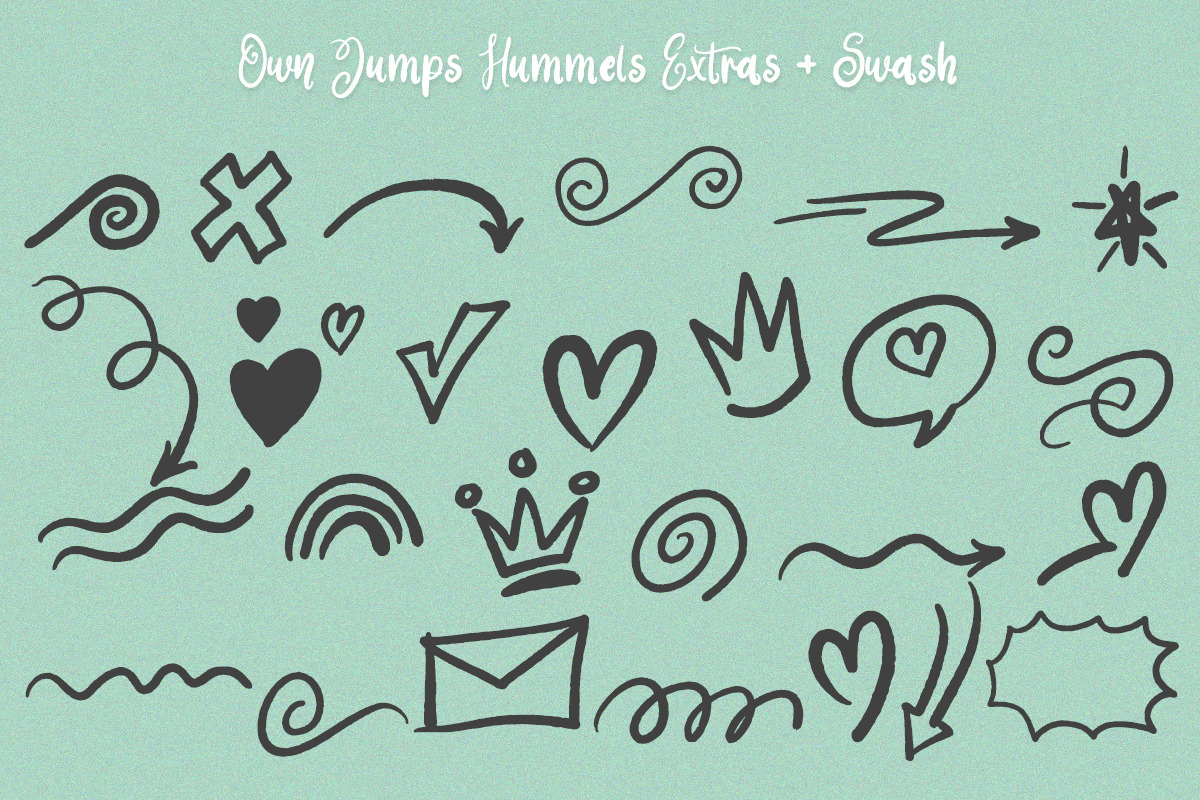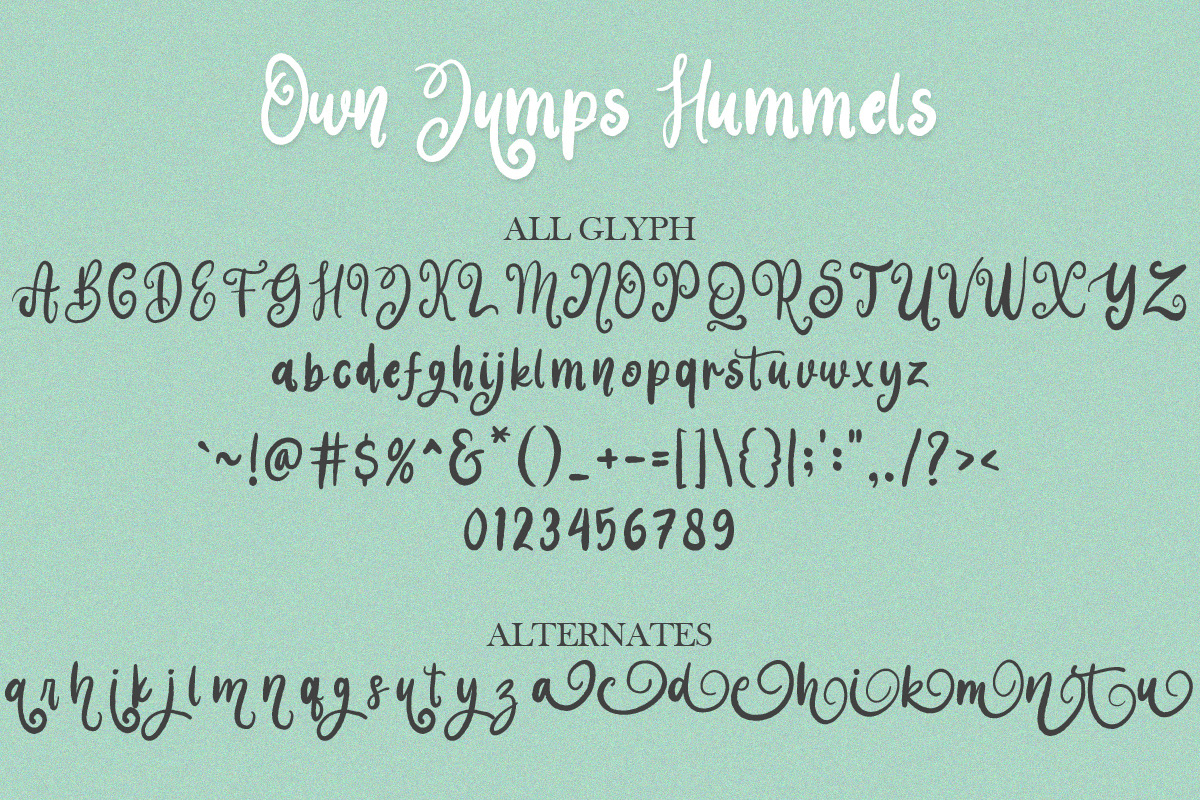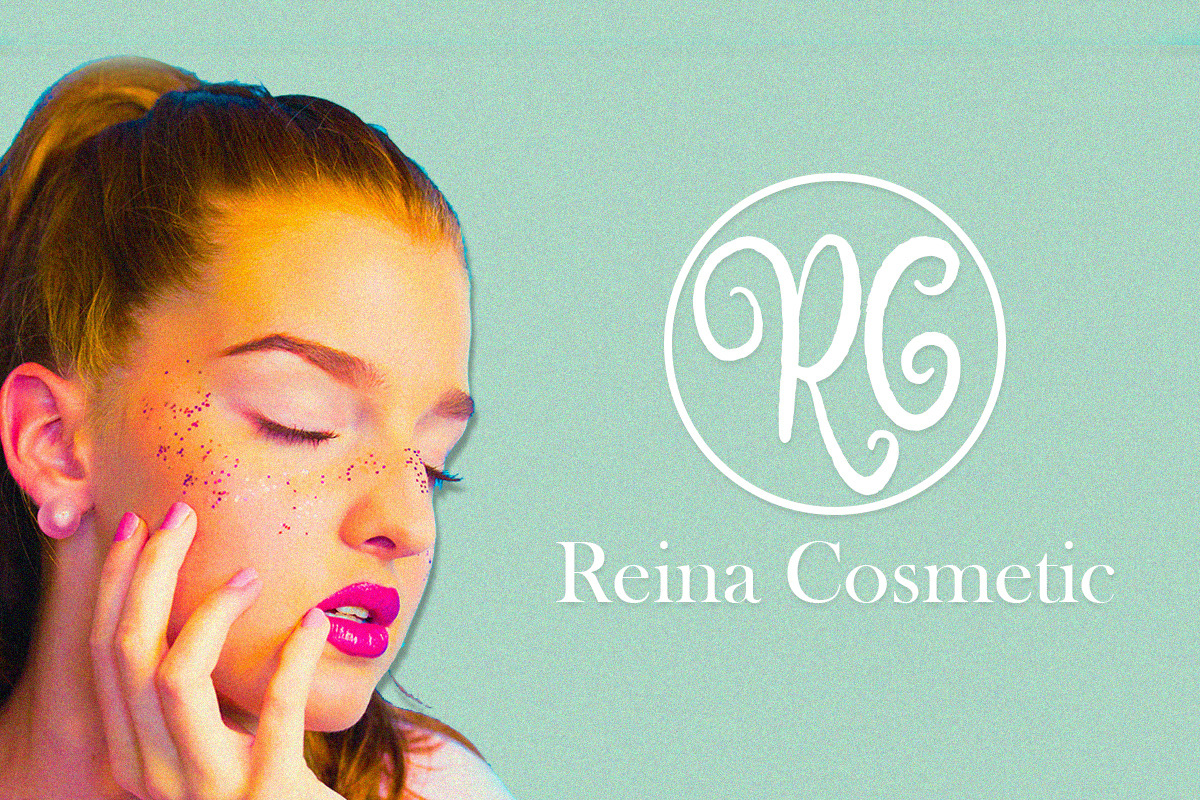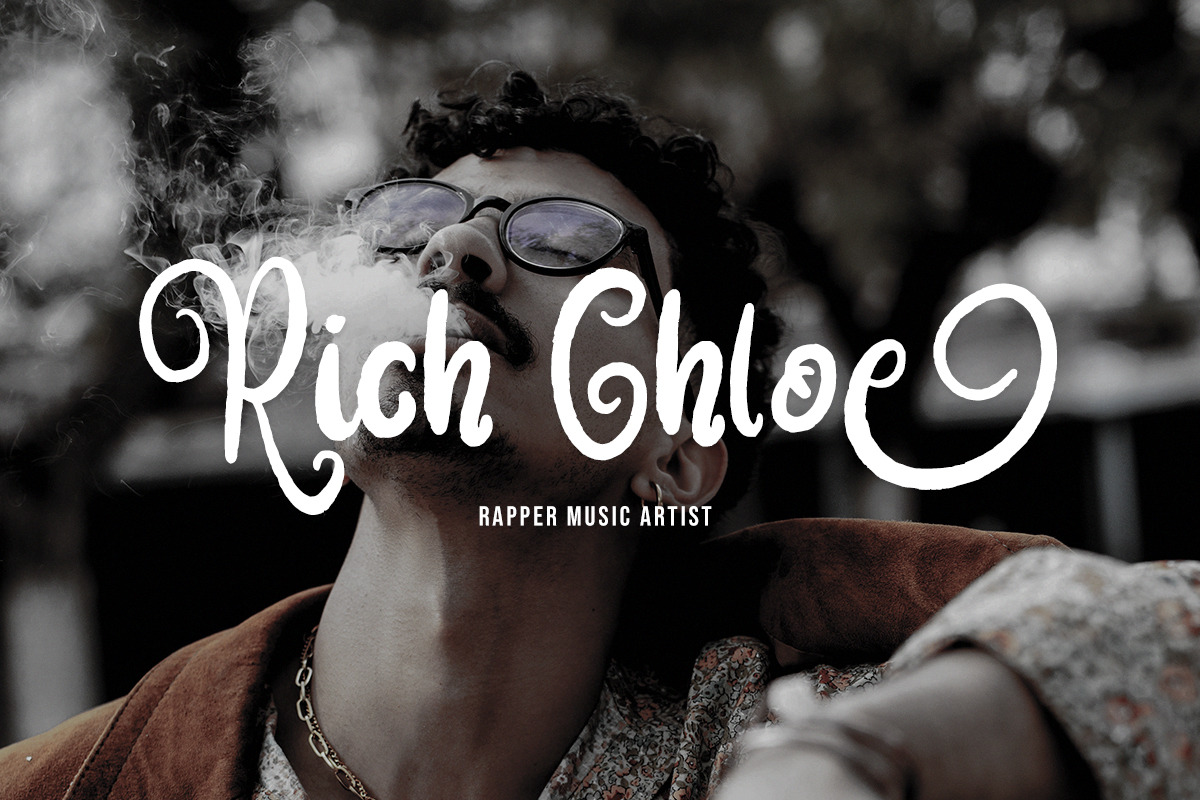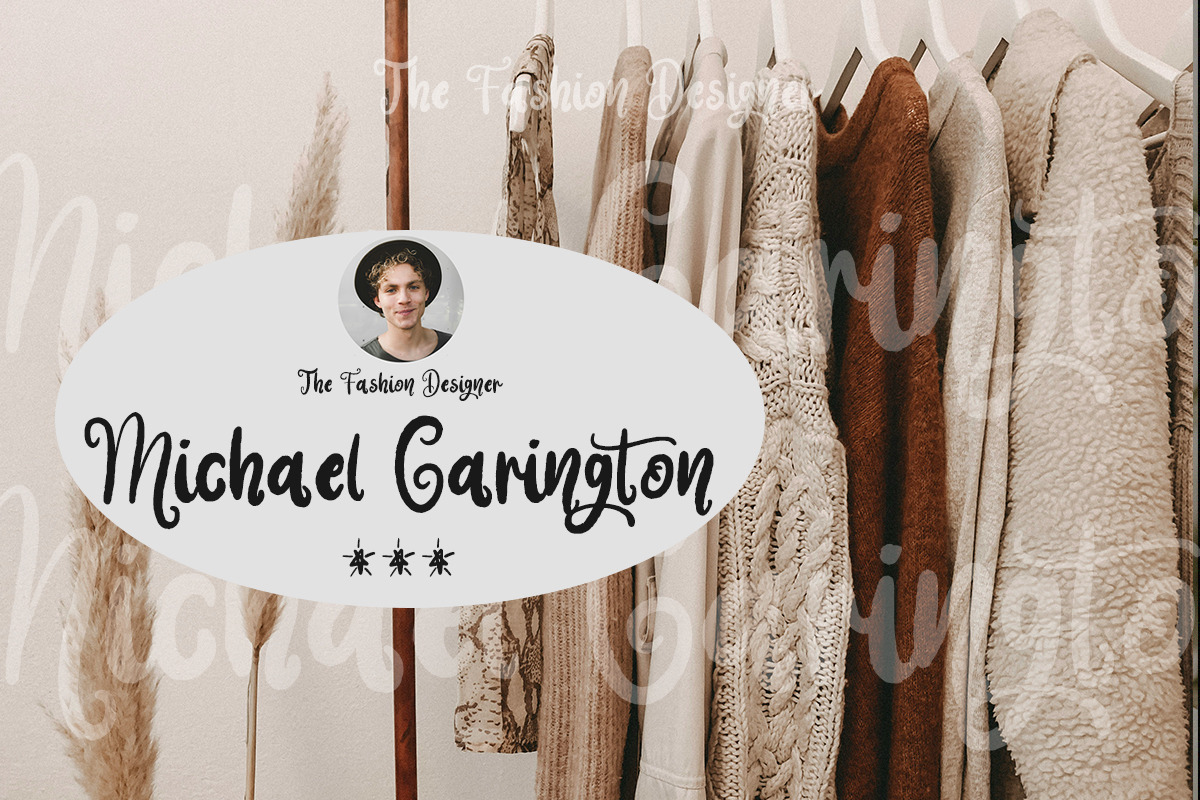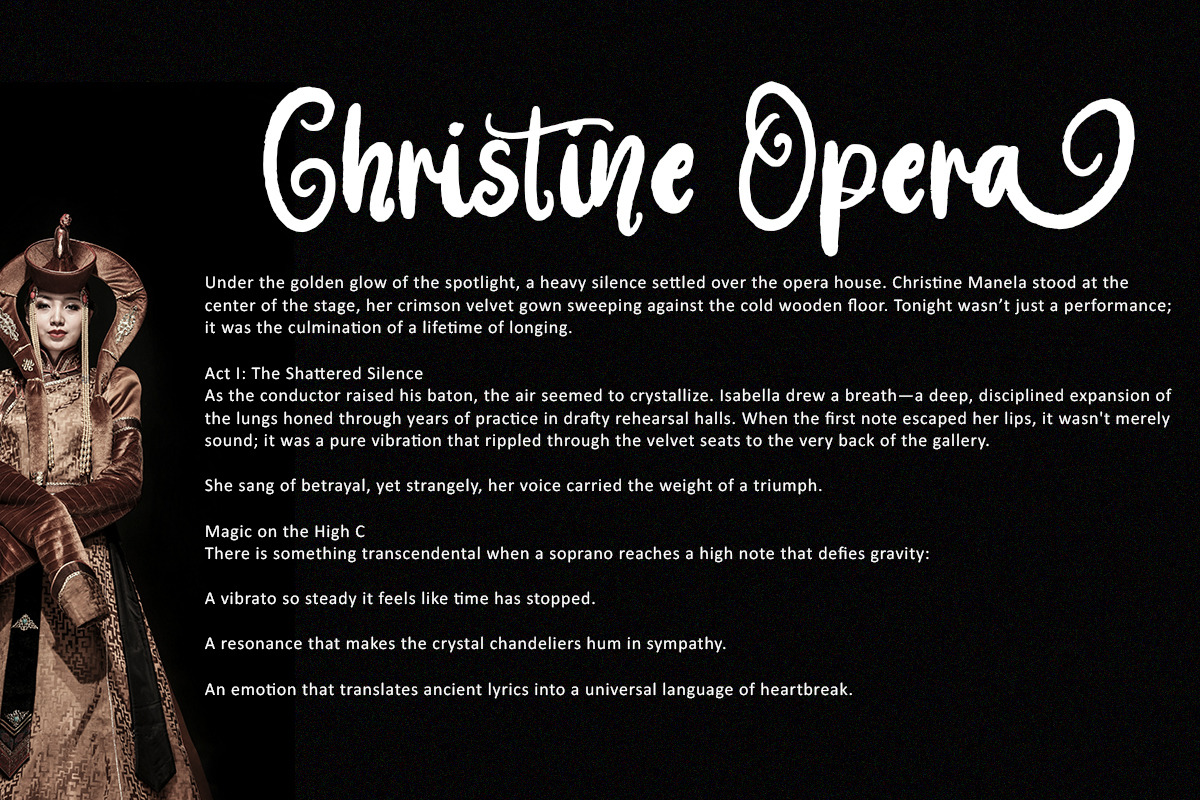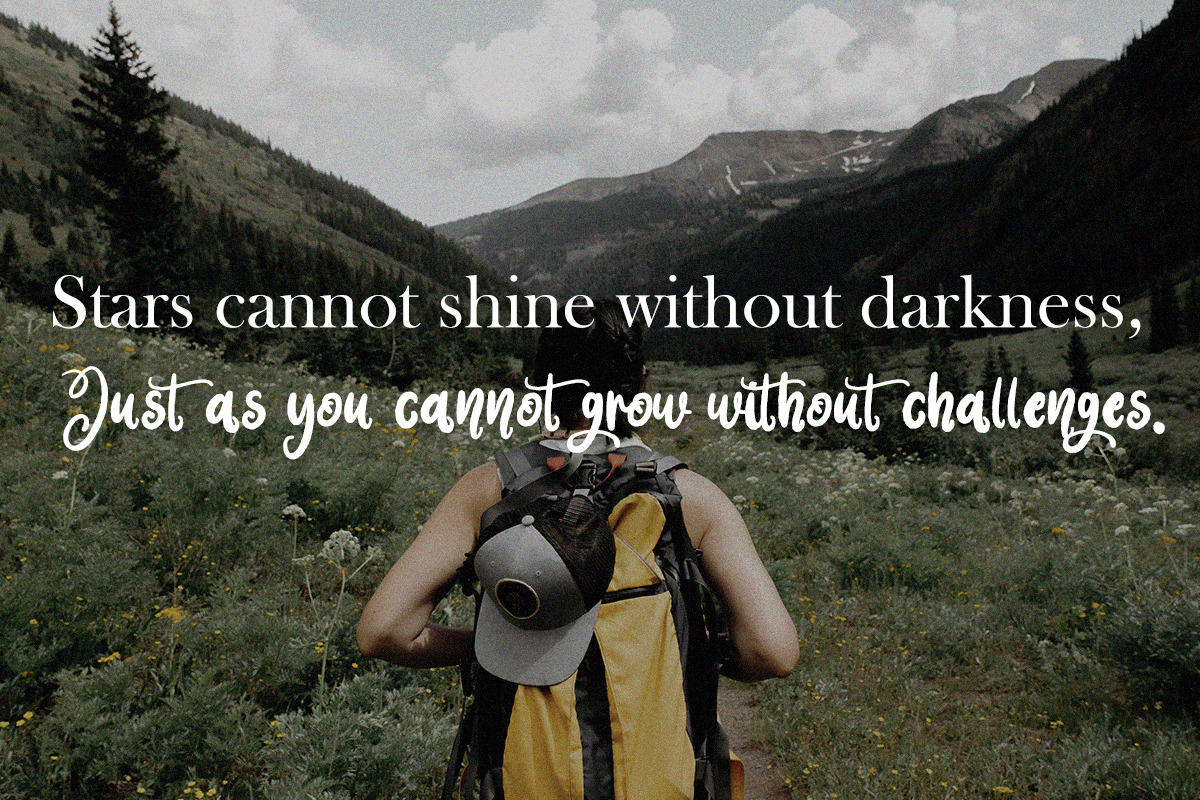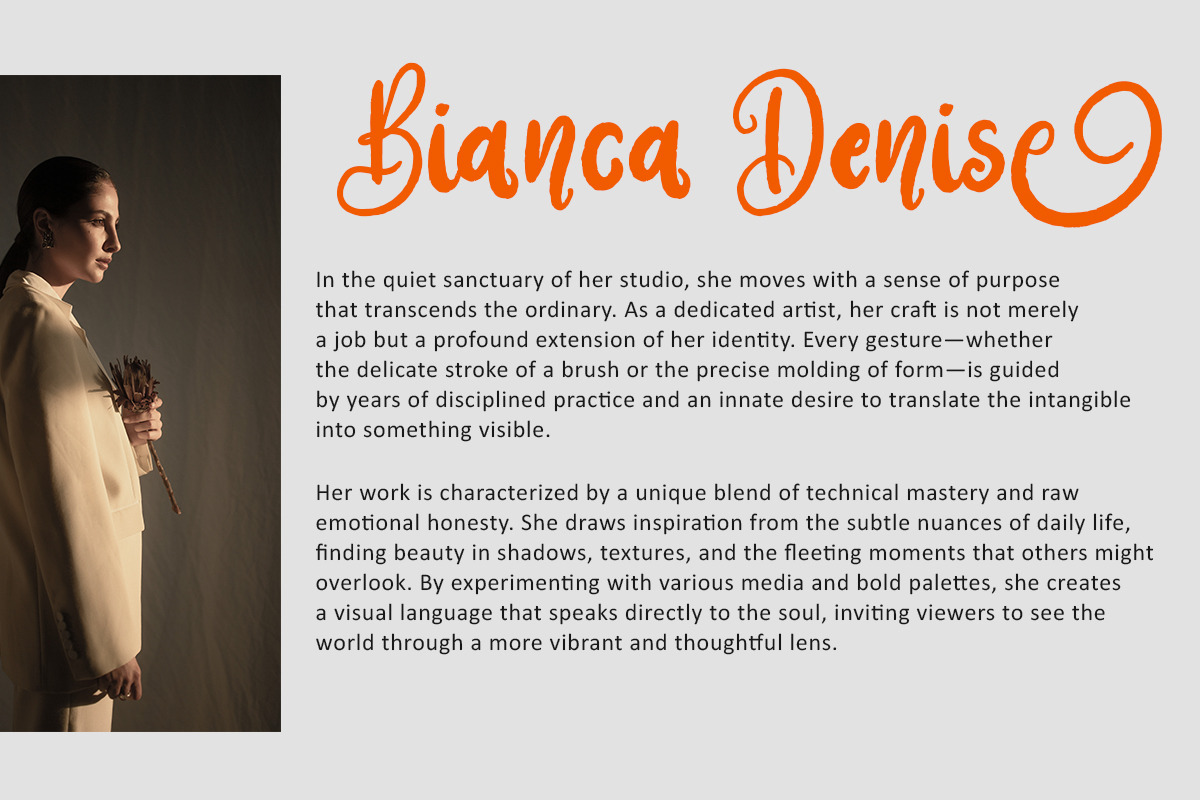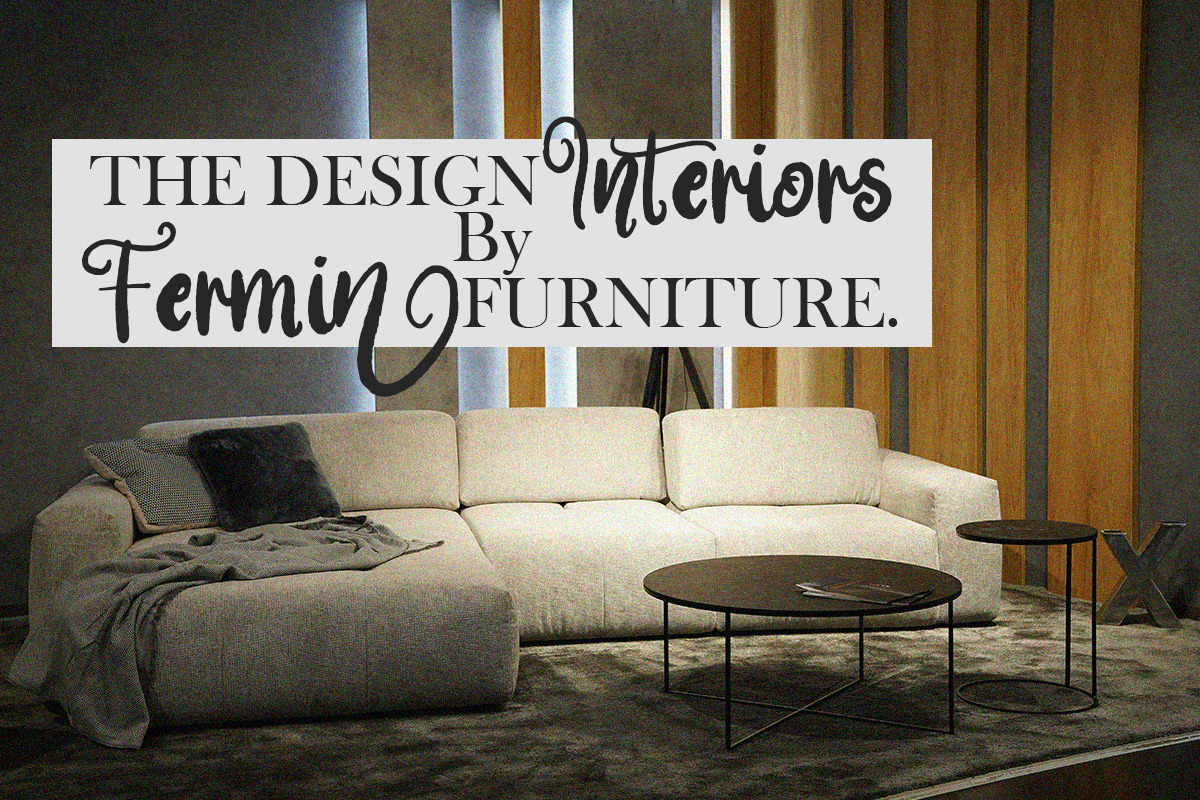
Own Jumps Hummels
Own Jumps Hummels – A Charming Handwritten Font & Extras Infuse your designs with a touch of warmth and personality with Own Jumps Hummels. This font is a beautifully crafted handwritten script that captures the essence of casual elegance. With its flowing lines and authentic "pen-to-paper" feel, it’s the perfect choice for creators looking to add a human, heartfelt touch to their work.
Perfect For: Branding & Identity: Create logos that feel approachable, artisanal, and unique.
Social Media: Eye-catching Instagram quotes, Pinterest graphics, and YouTube thumbnails.
Packaging Design: Ideal for organic beauty products, handmade snacks, or boutique labels.
Stationery & Gifts: Beautiful for wedding invitations, greeting cards, planners, and stickers.